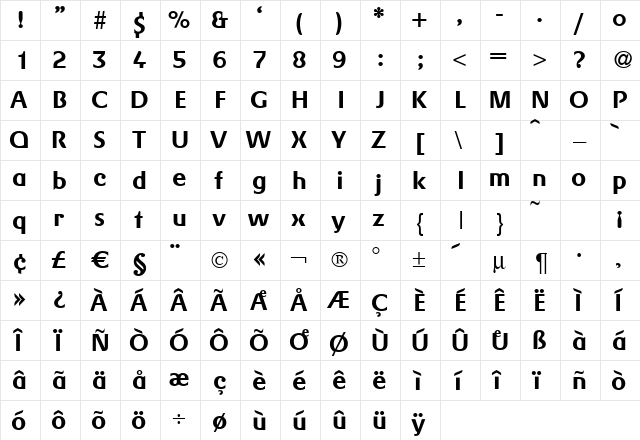
Gerling Regular
Design Context for Gerling Typeface
Gerling offers clean, dependable letterforms without strong stylistic allegiance, making it a practical choice for designers who need flexibility.